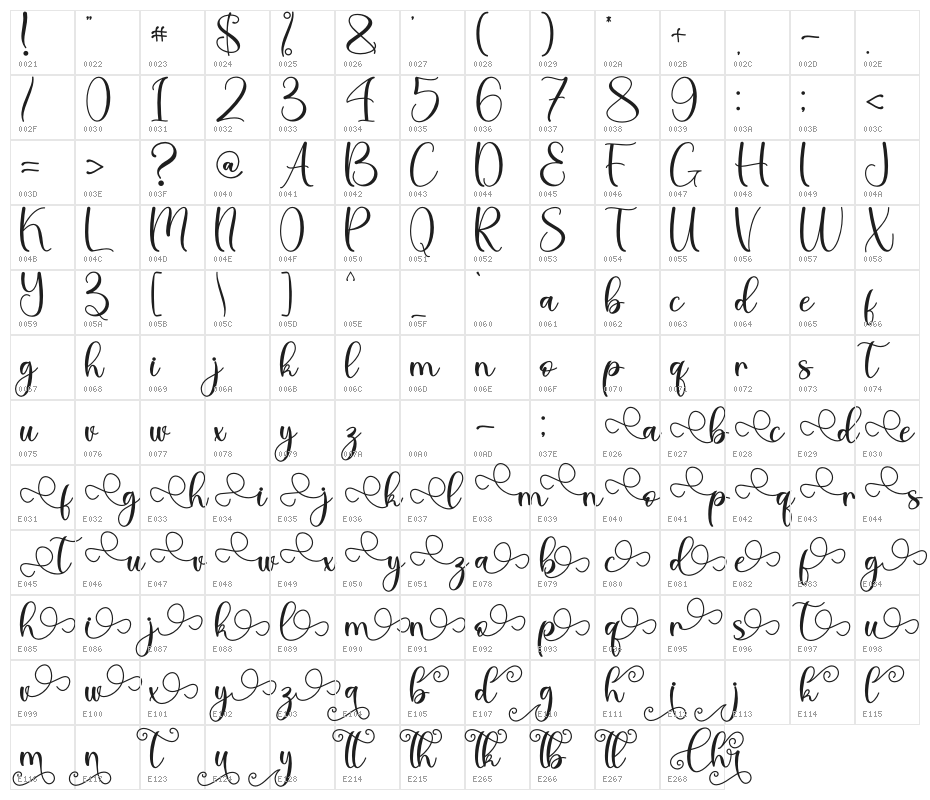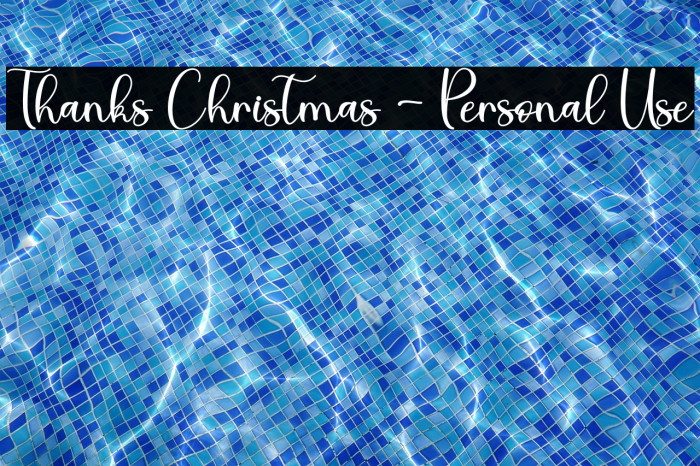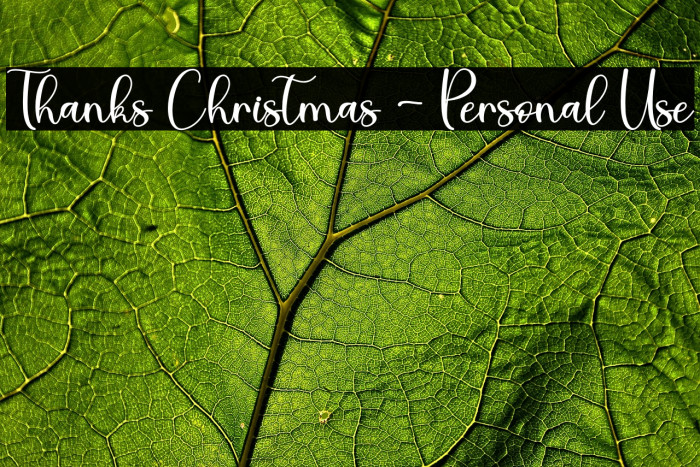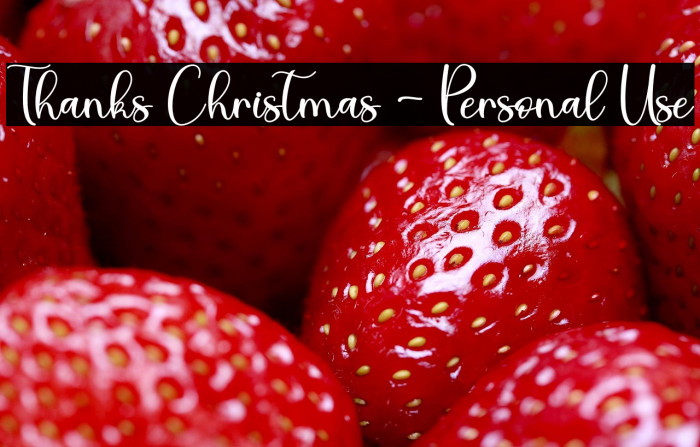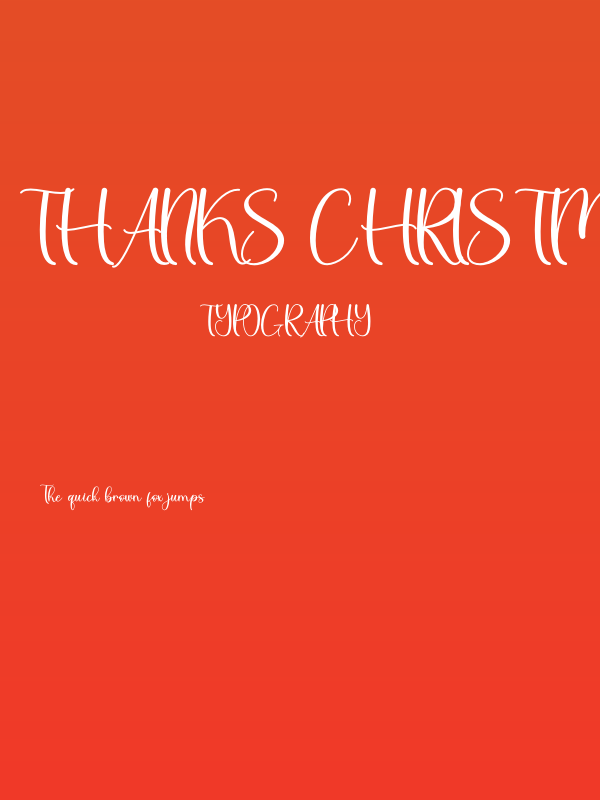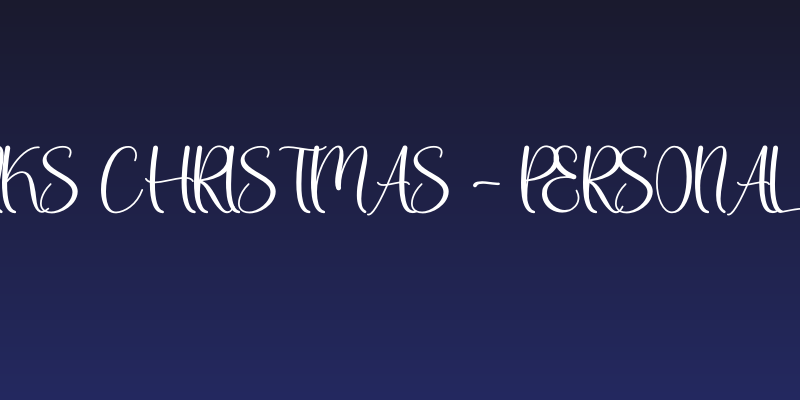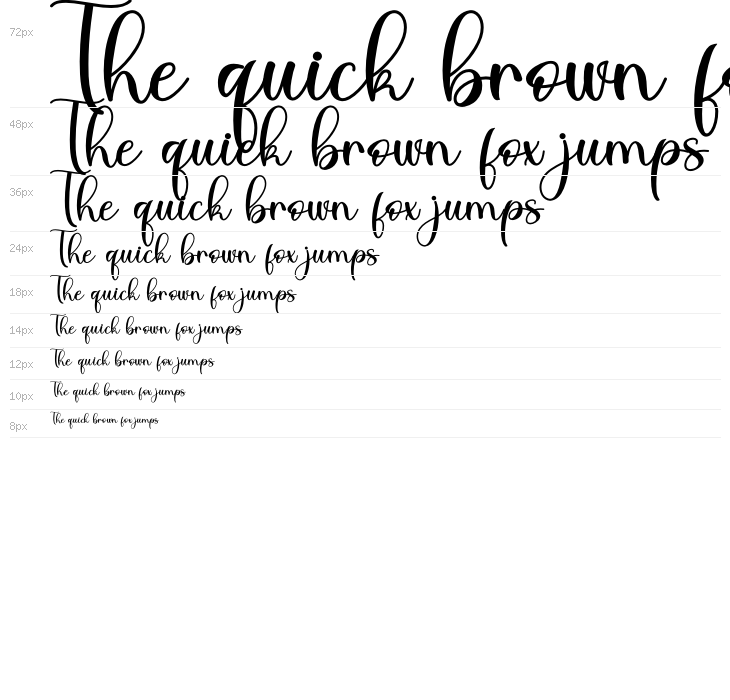
Thanks Christmas - Personal Use Font
Thanks Christmas - Personal Use Description
This font features an elegant and flowing script style, characterized by its smooth, cursive strokes and graceful loops. The uppercase letters are tall and slender, with a slight slant that adds a sense of motion and fluidity. The lowercase letters are more compact, maintaining the same flowing style with intricate connections between characters. Numbers and special characters are designed to match the overall aesthetic, with a playful yet sophisticated appearance. The font's design is reminiscent of handwritten calligraphy, making it suitable for projects that require a personal and artistic touch.
| Use Case | Logos, Invitations, Decorative Text |
| Proposed Projects | Ideal for wedding invitations, holiday cards, branding, and decorative signage. |